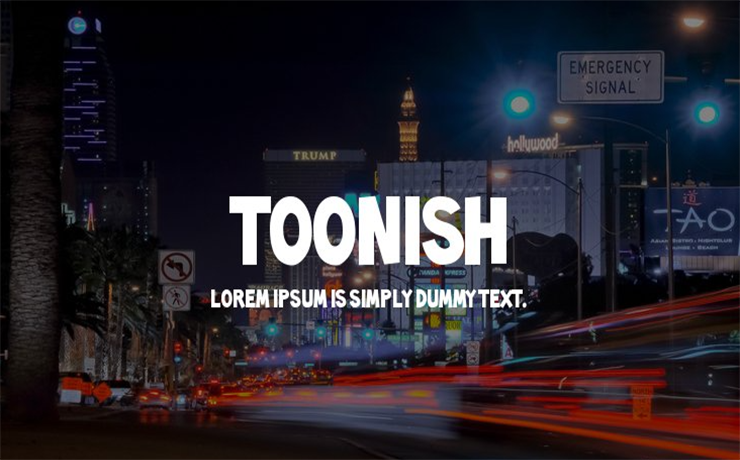
Toonish Font is a fancy cartoon typeface that has a fun friendly style as well as playful. If you like to use this font to design T-shirts, toys, logos, and stickers.
It has a bold look with a cool texture throughout. It looks like a cartoon texture because irregularity has been found in letters. It has straight lines but the outline does not follow straight lines.
So we got the cartoon effect in his letters. So, of course, this is a great option for creating a unique design that no one has ever created before. If you have a place where you want to use it, try it.
Check out the great font sample. Below, we’ve shared a photo with glyphs and characters from this amazing font.
Due to its fancy cool appearances, you can create comic covers, cartoon posters, movie posters, game titles, stationary, school bags, geometry boxes, shopping bags, branding, taglines, and many more.
You can use this font with other handwritten fonts as a good pair such as Indie Flower Font by Kimberly Gaswein, Letterbox Font by Stephen Banham.